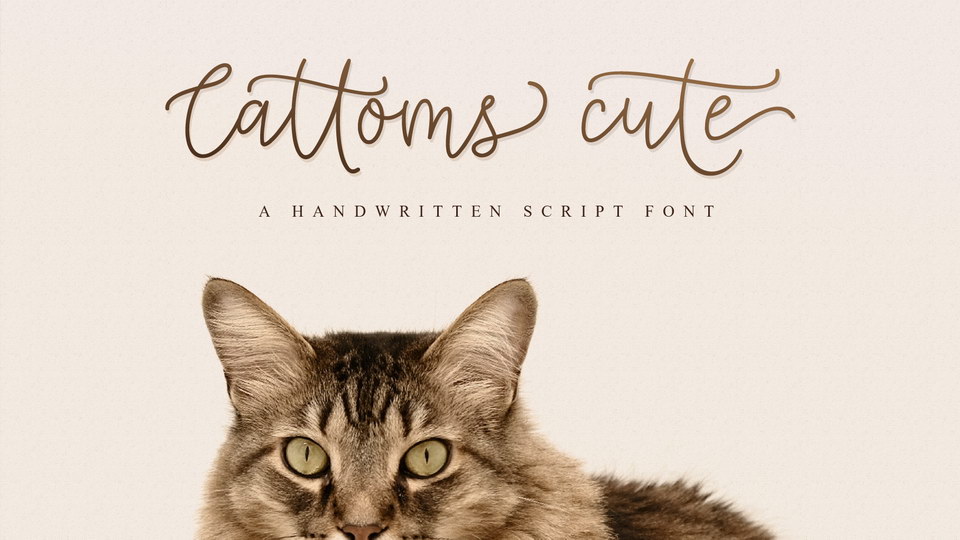
Download Cattoms Cute font, a lovely handmade font designed to allow you to create a stunning hand-lettering quickly and easily. Cattoms Cuteis ideal for logos, handwritten quotes, product packaging, header, poster, merchandise, social media & greeting cards and more.
Designer: Wandani Creative